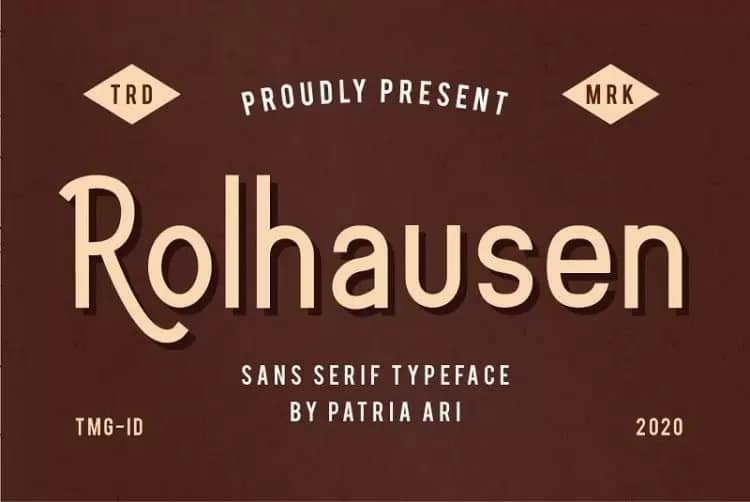
Rolhausen Font
Rolhausen Sans Serif Font is a sans-serif font that is fresh, geometric, and has a modern twist with a grotesk, humanist style. It’s designed and shared by Patria Ari Typestudio. This font is a sans serif typeface which is suitable for you who needs a typeface for headline, logotype, apparel, invitation, branding, packaging, advertising etc.